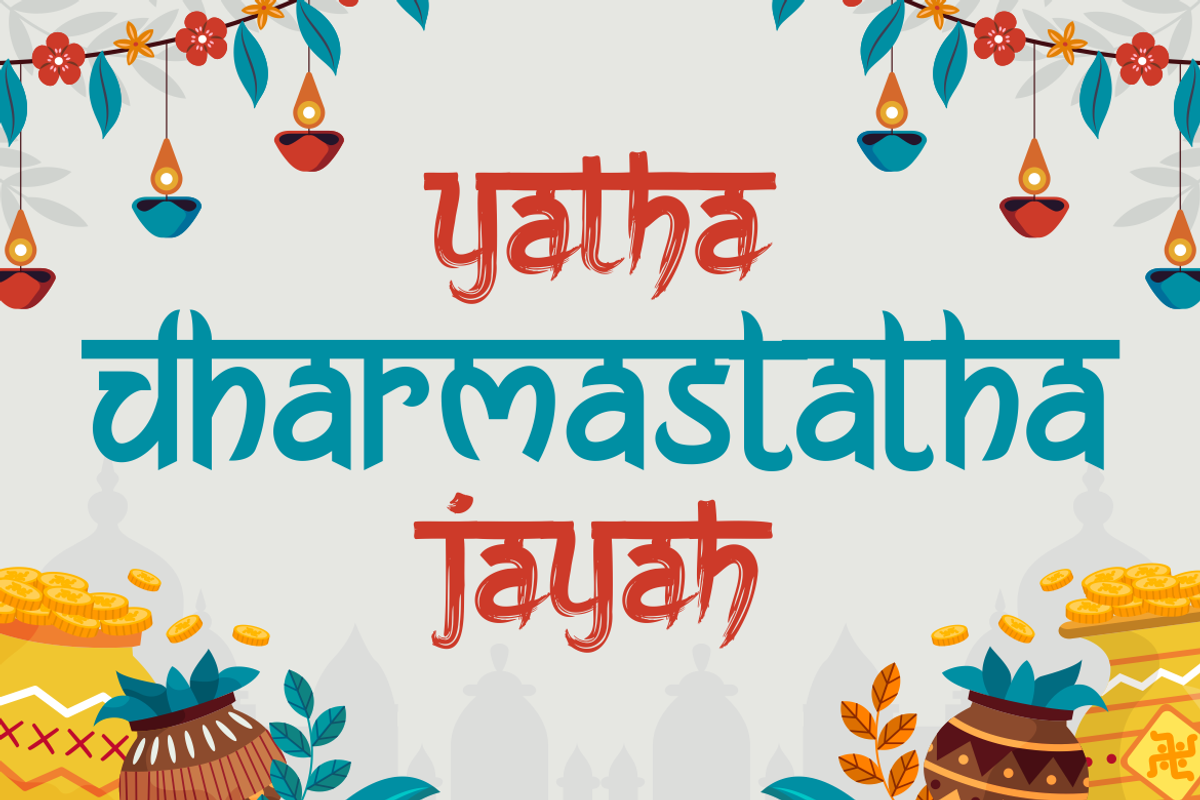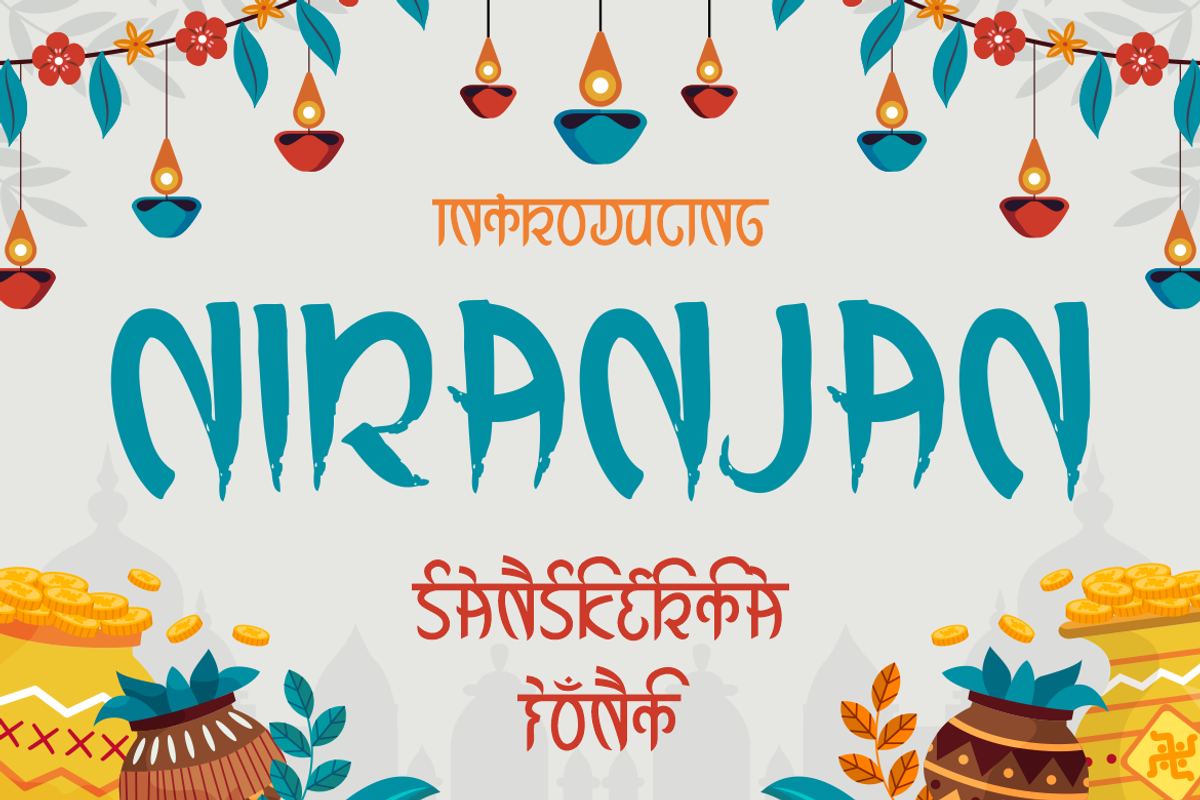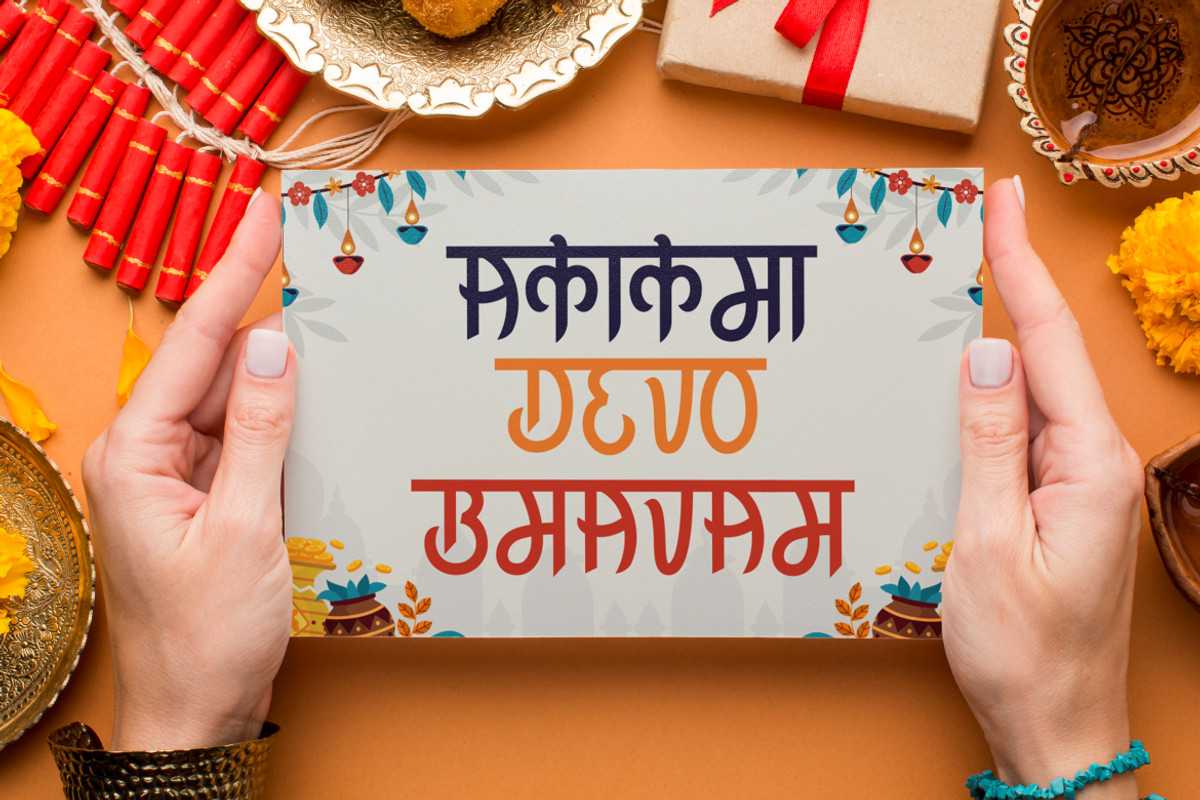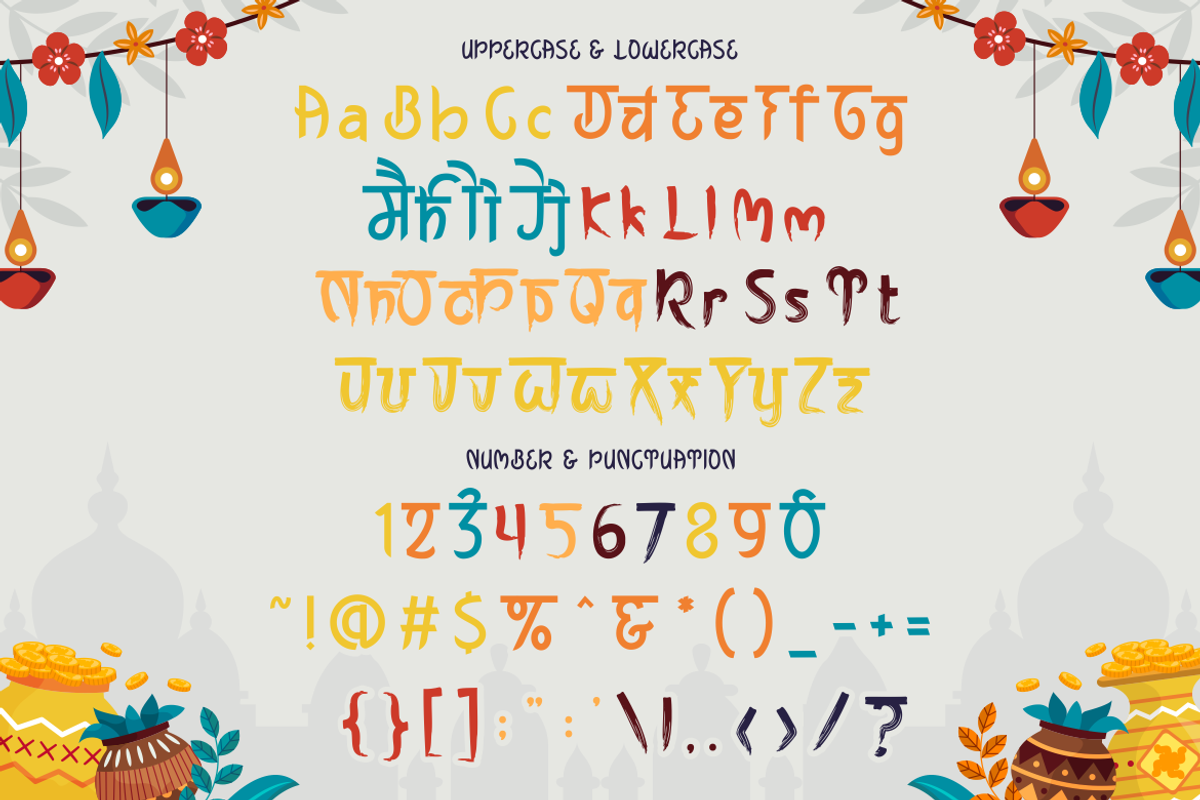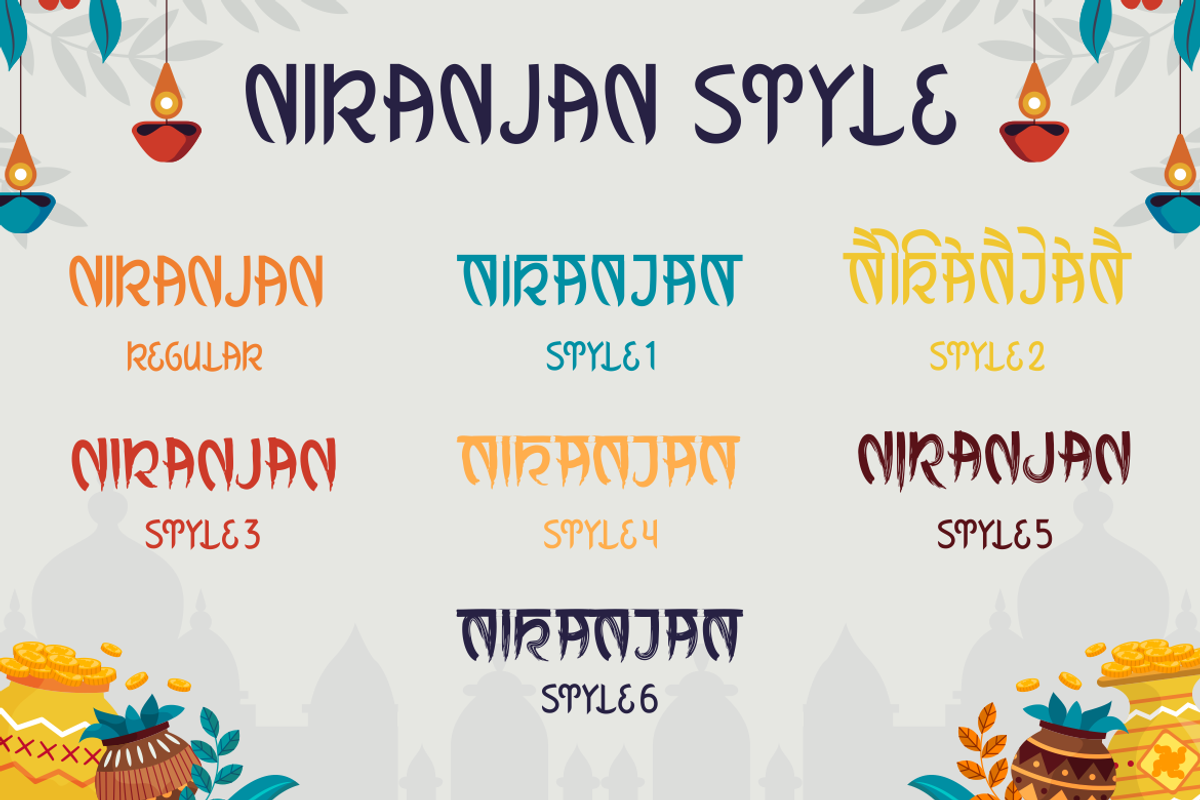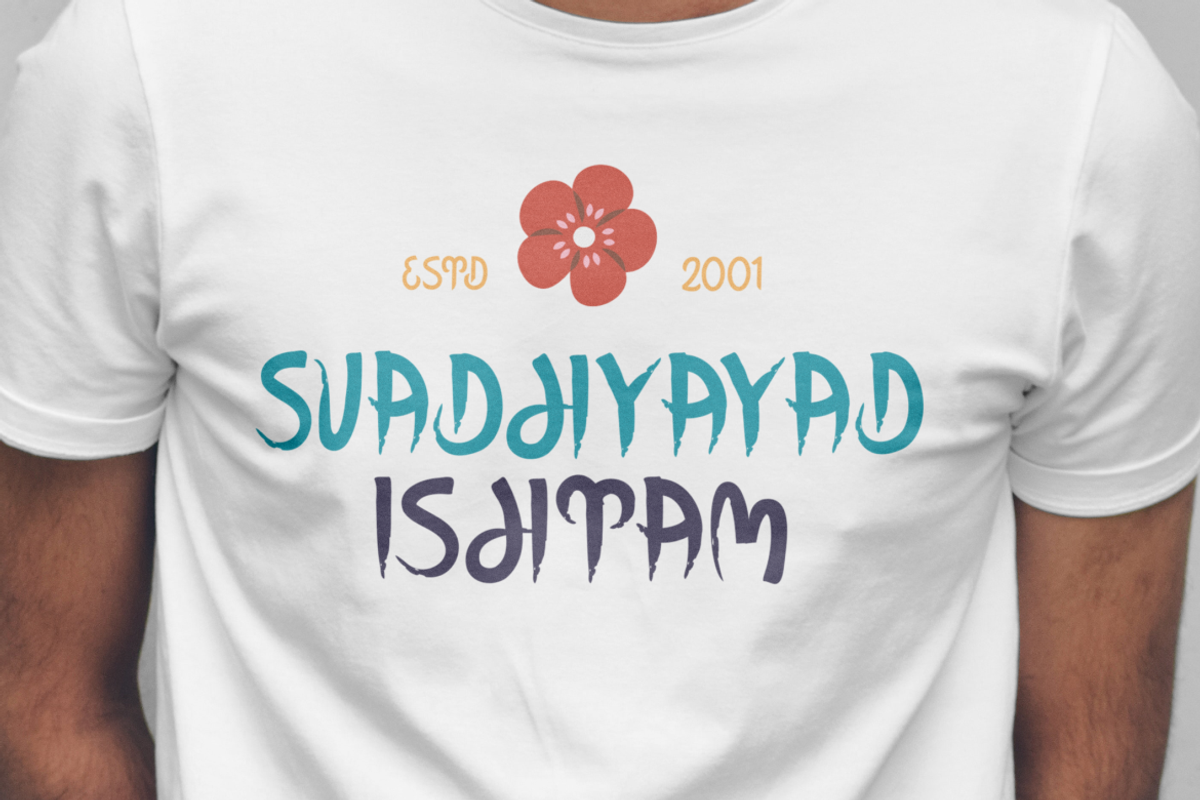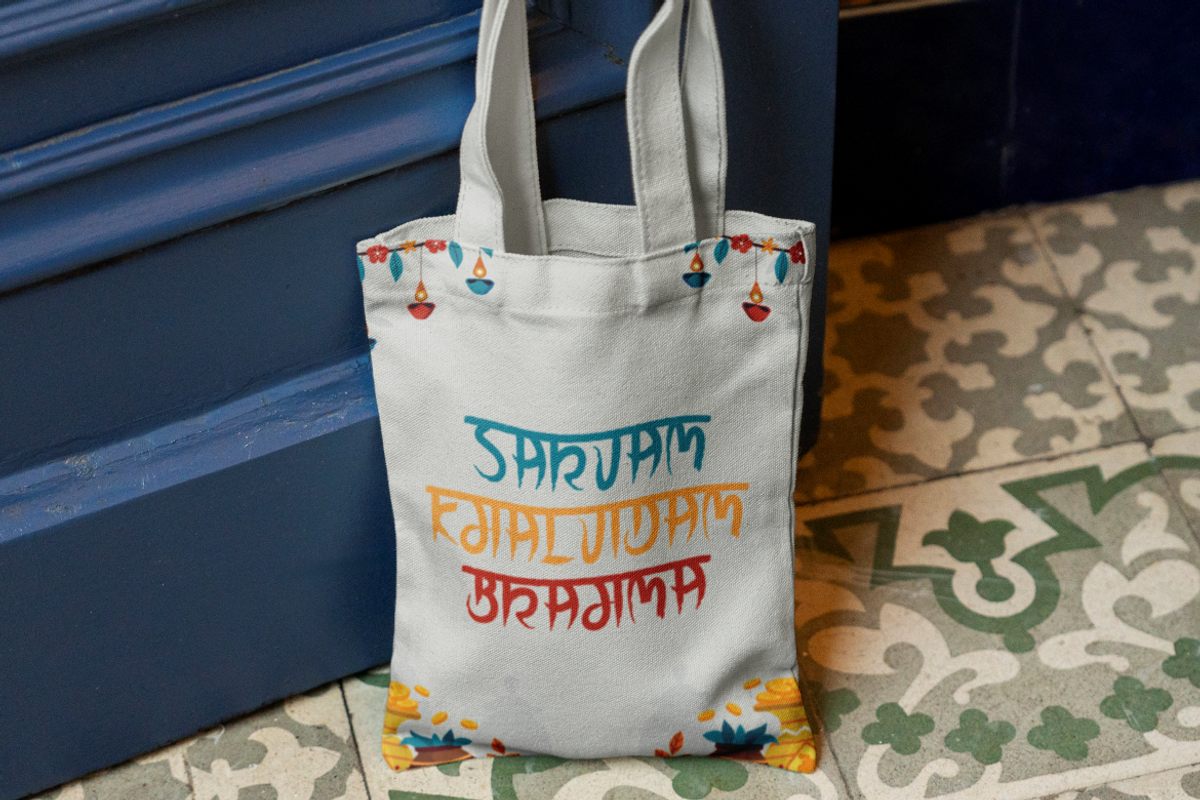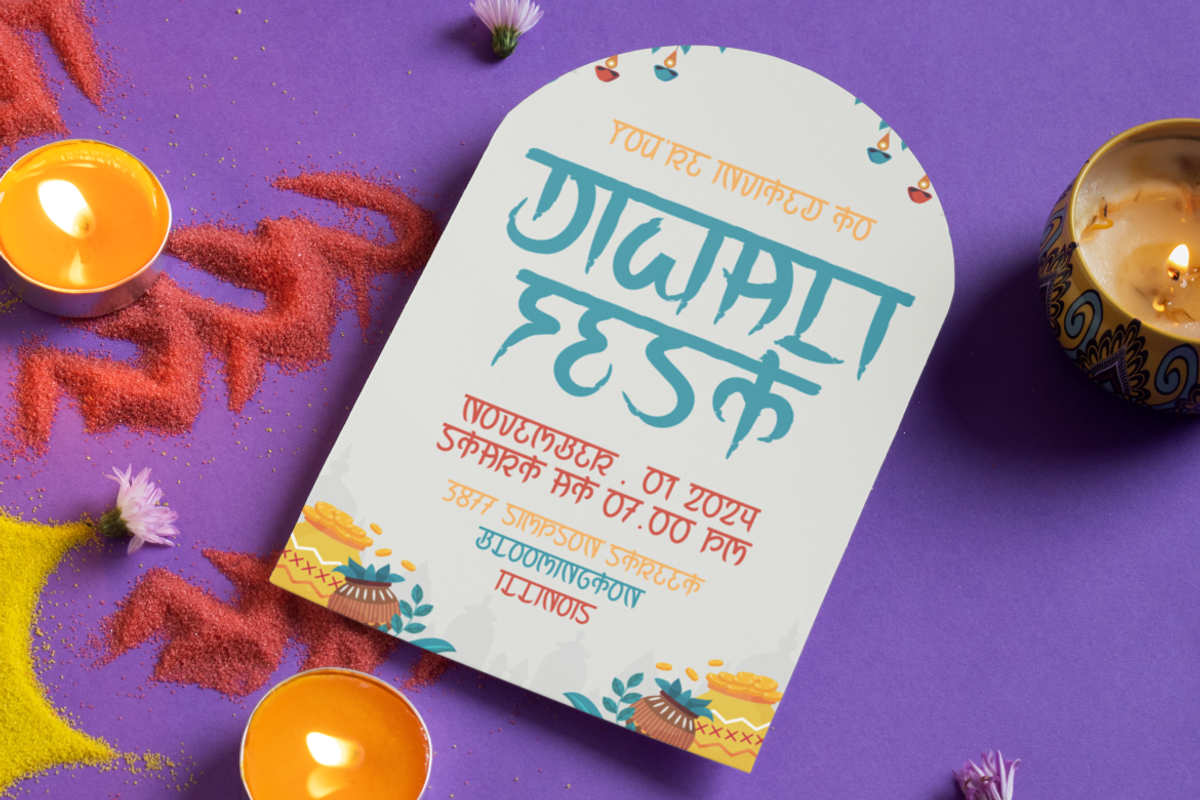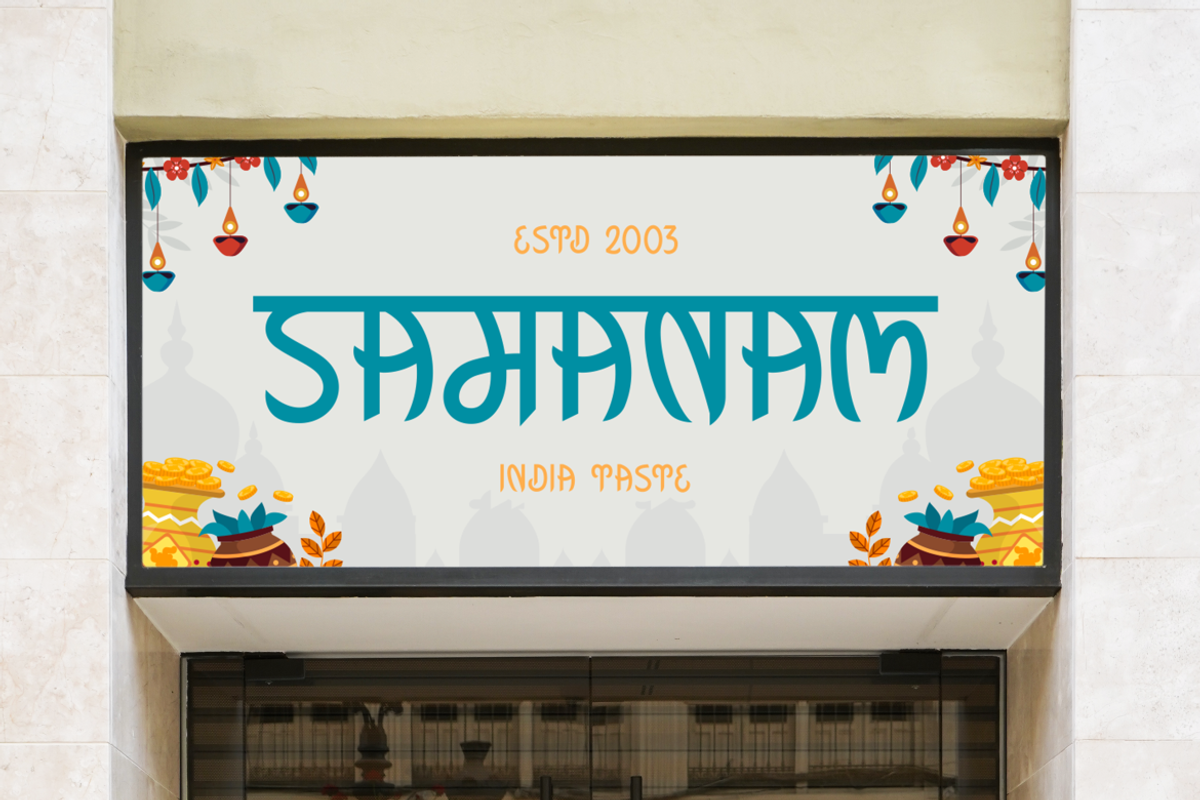
Niranjan - Sansekerta Font
Step into the world of ancient scripts and modern design with Niranjan - Sanskerta Font, a display font that bridges the gap between traditional Indian calligraphy and contemporary typography. This font is a homage to the rich cultural tapestry of India, offering a foreign look that is both exotic and familiar. With its elegant curves and refined strokes, Niranjan captures the essence of Sanskrit scripts while maintaining the readability and functionality required for today’s diverse design needs. It’s perfect for projects that require a touch of Indian heritage without sacrificing modern aesthetics.
Whether you’re designing a logo that resonates with global audiences or crafting an invitation that tells a story of timeless tradition, Niranjan is your ally. Its versatility extends to branding, packaging, and even editorial design, where it can add a layer of sophistication to any layout. For businesses looking to stand out, this font offers a unique identity that is both bold and respectful of its roots. Niranjan is not just a font; it’s a journey through history, reimagined for the digital age.